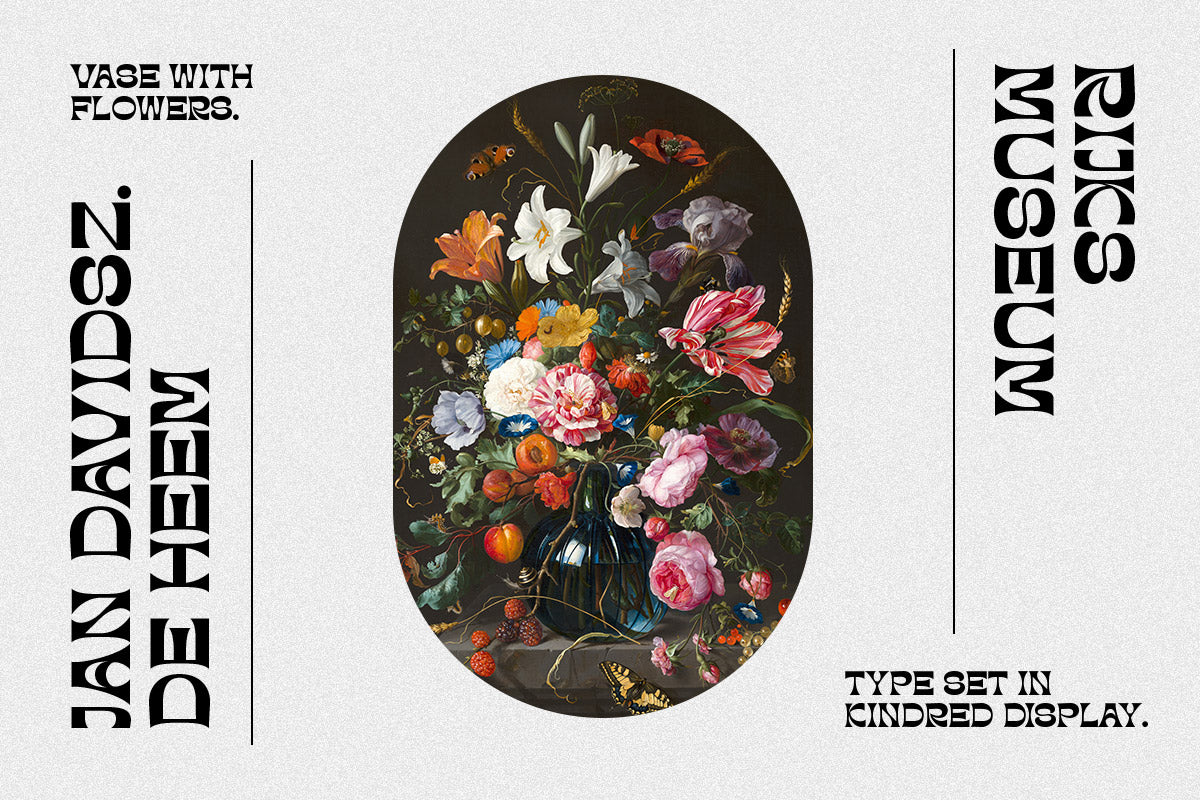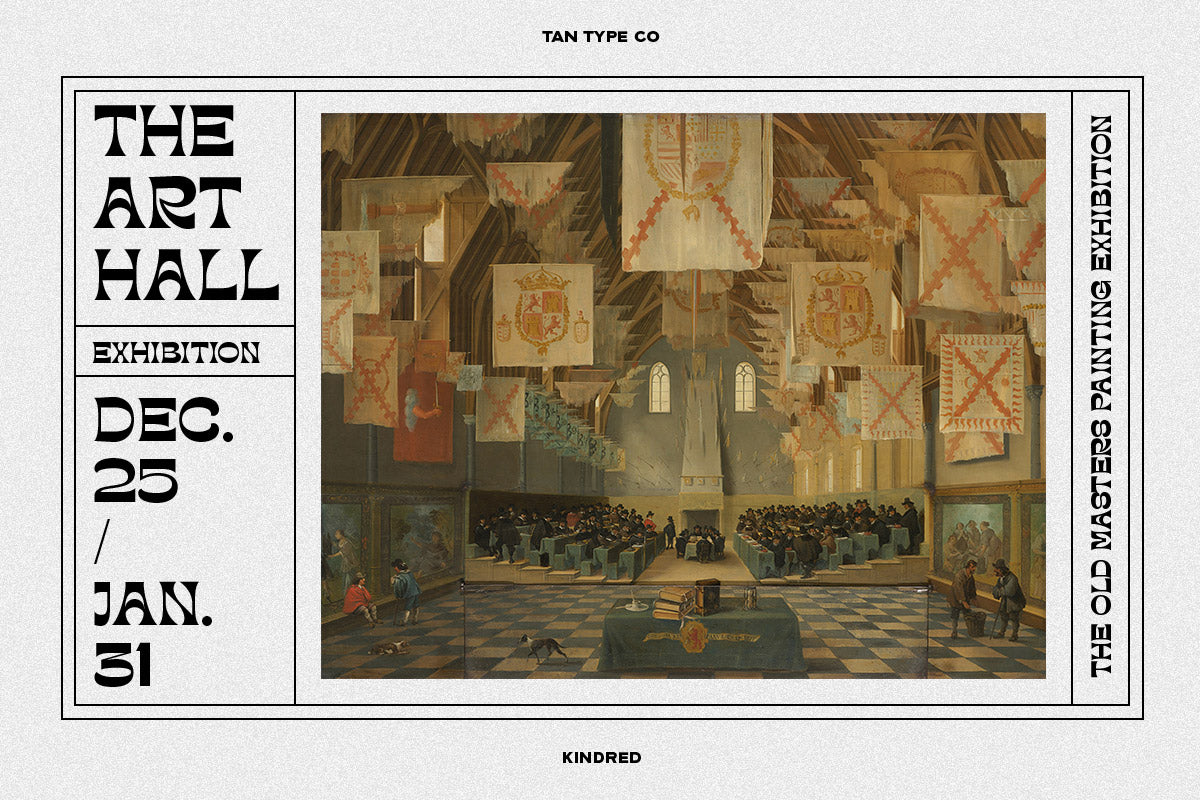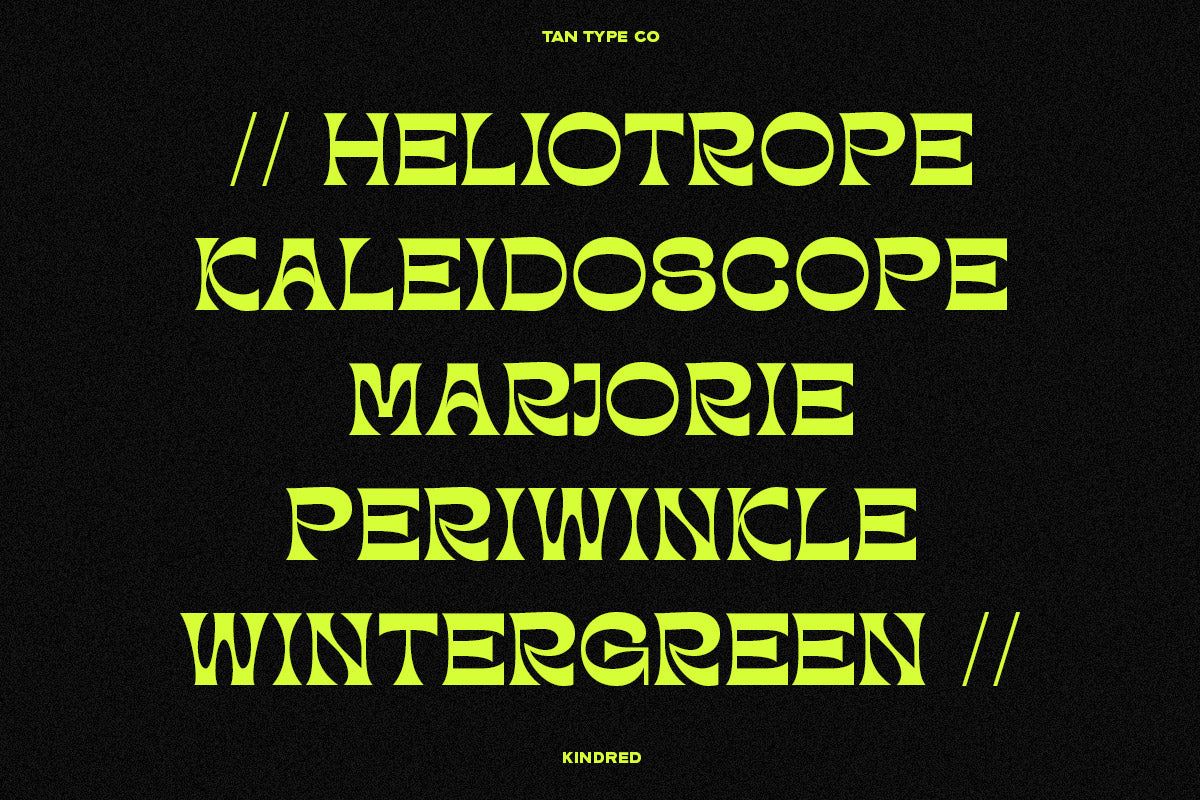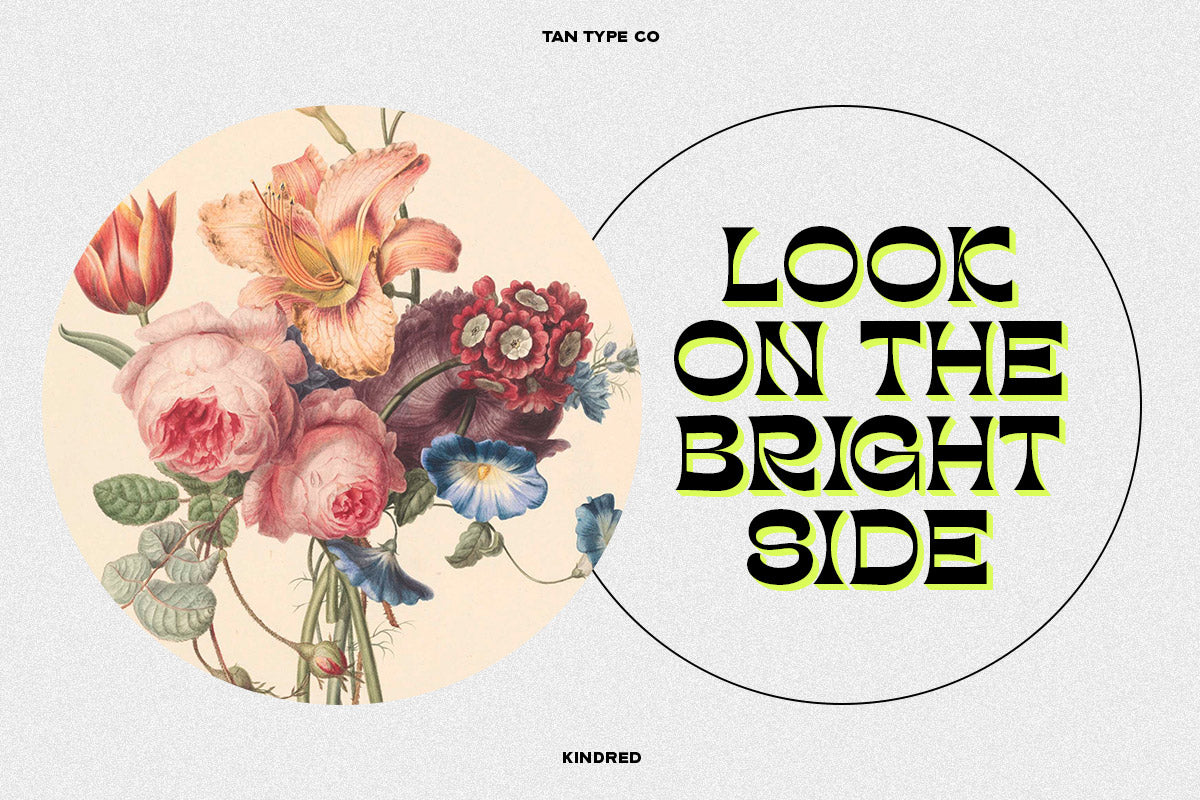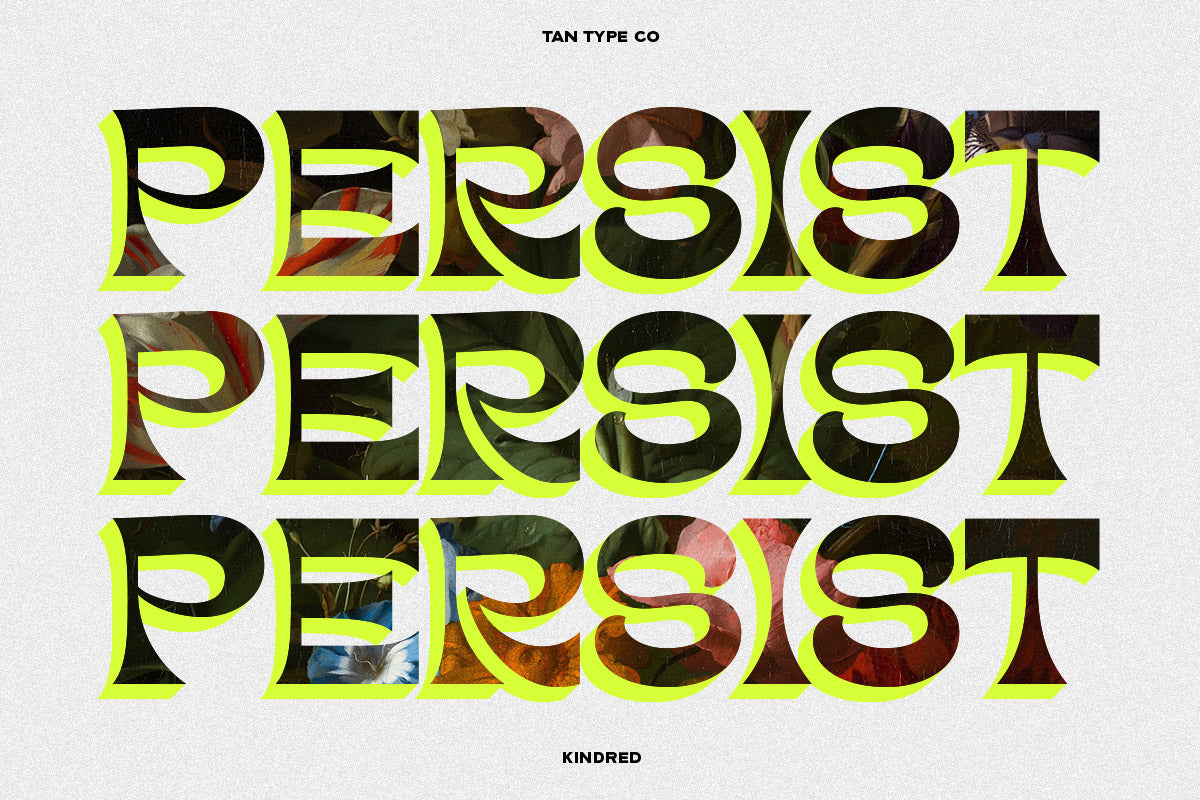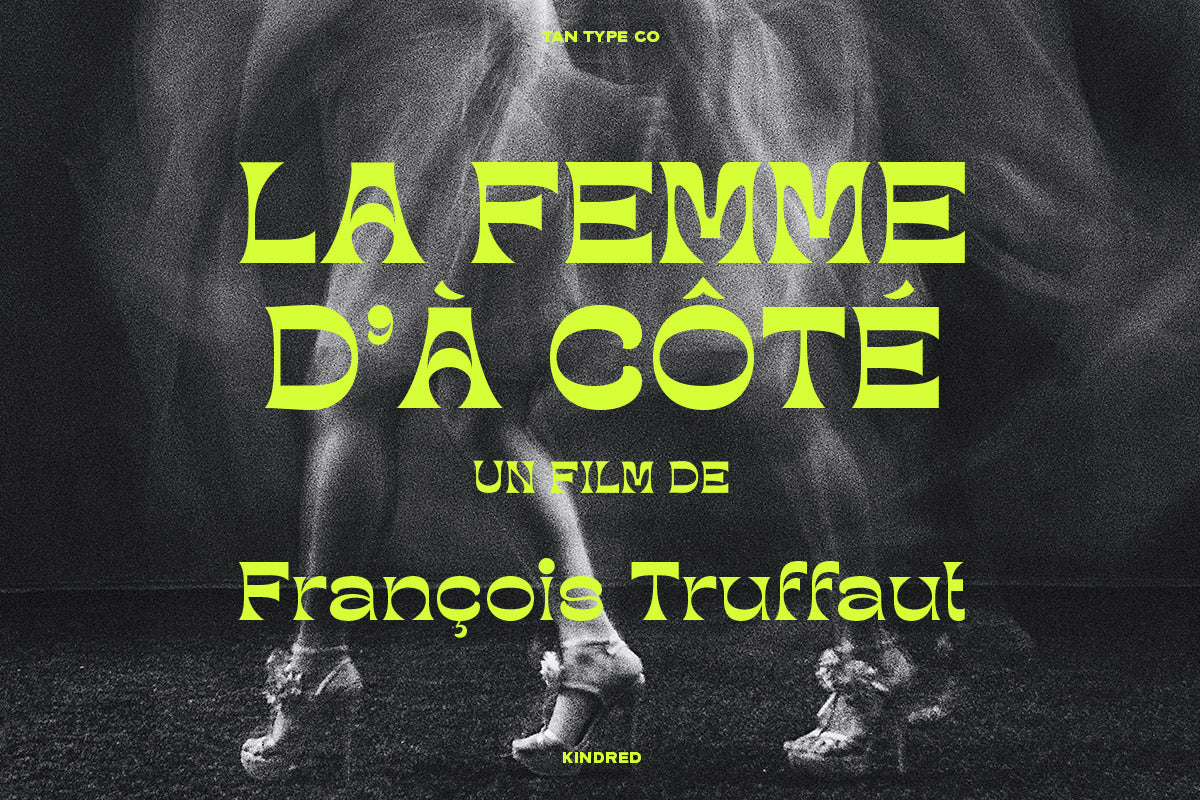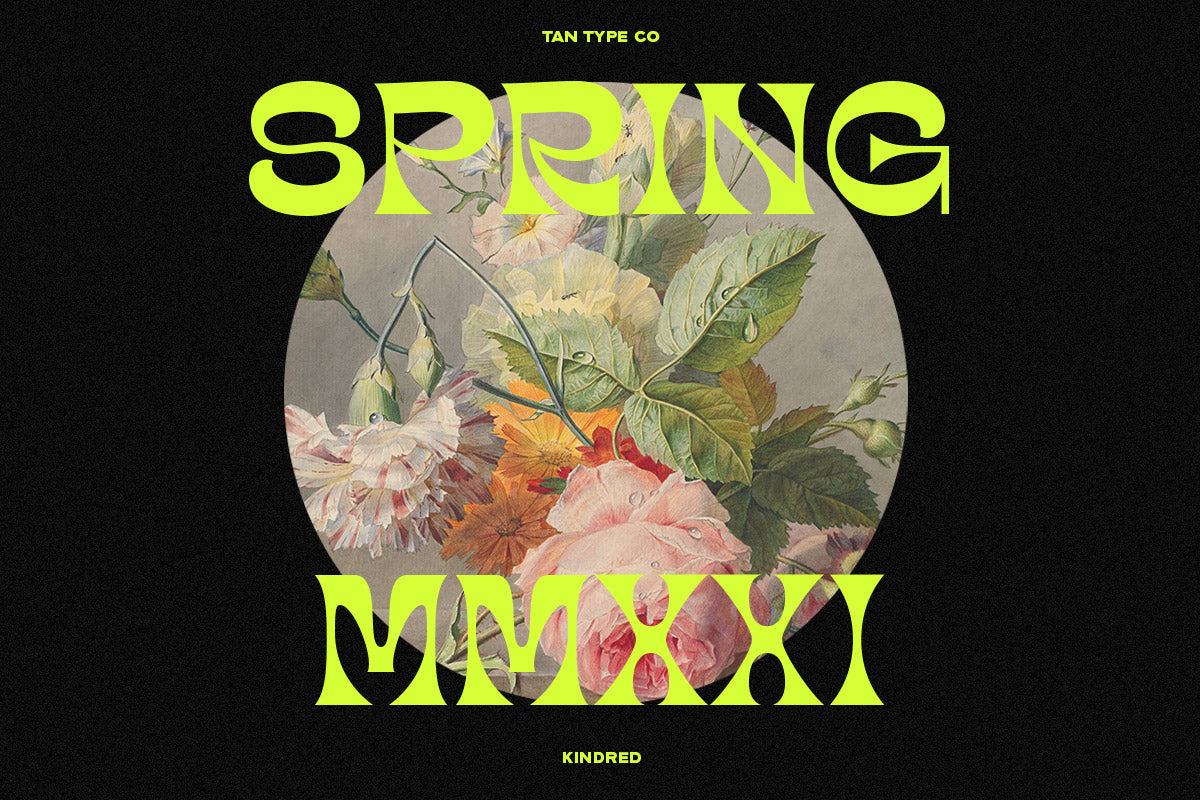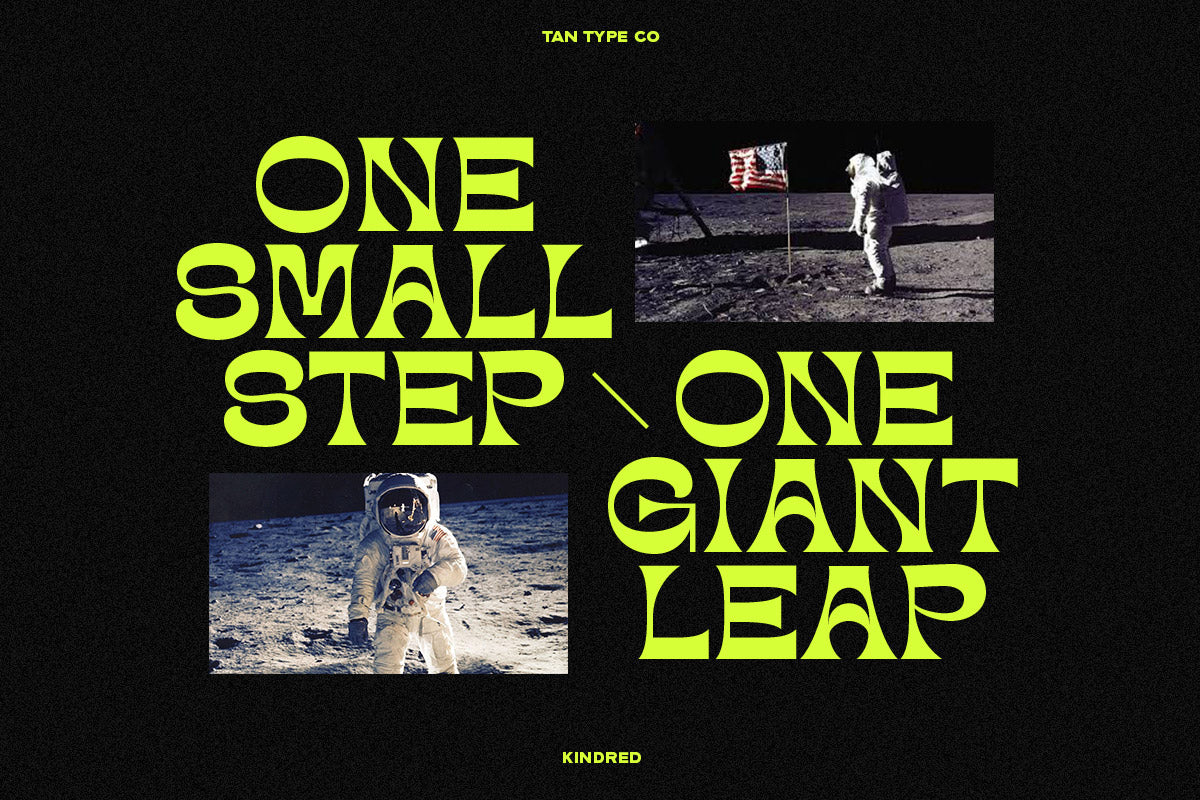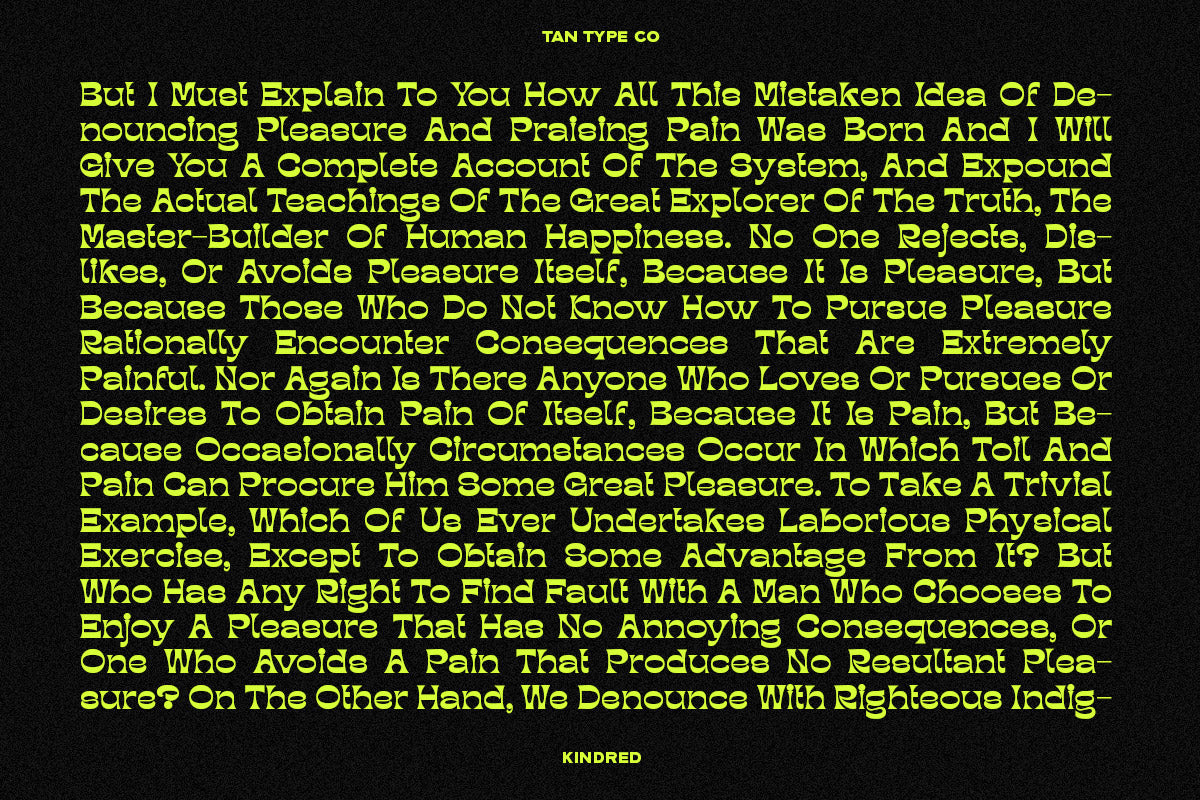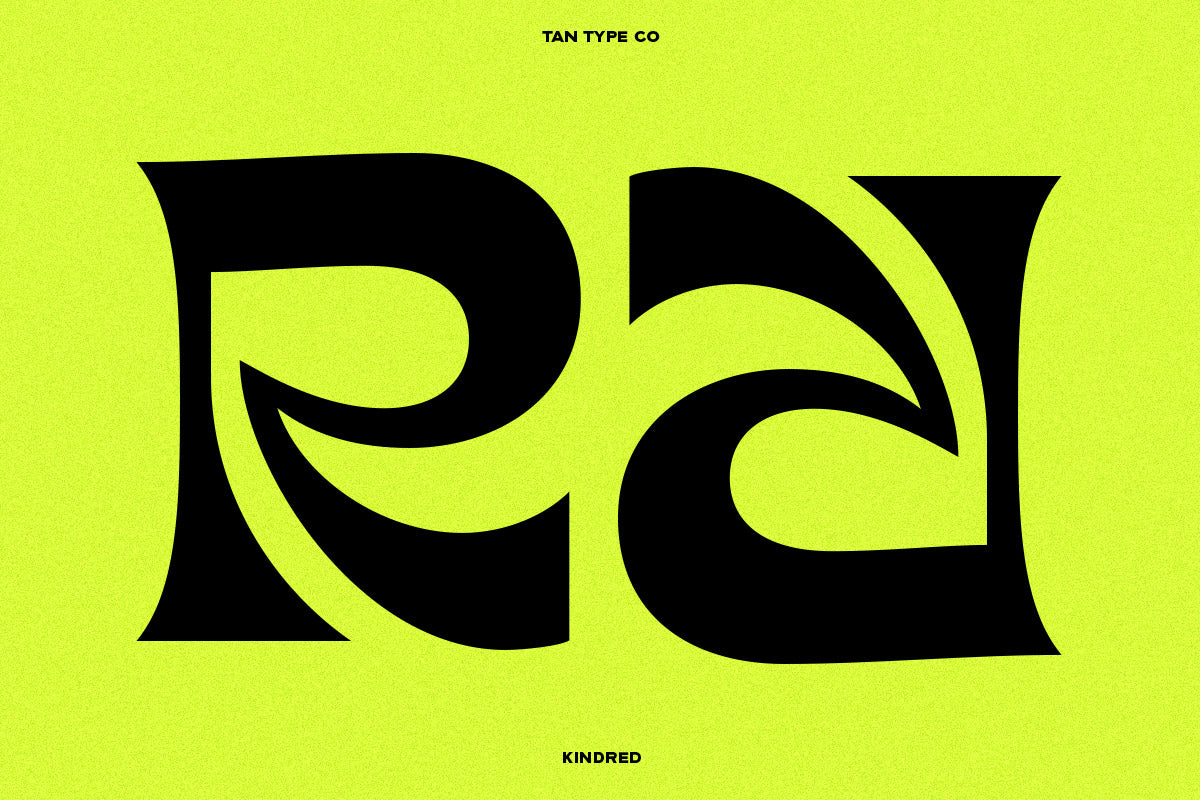
KINDRED is a bold and expressive display typeface with vintage soul and whimsical structure. Featuring wide letterforms, flared serifs, and stylized curves, it radiates nostalgic warmth while maintaining a strong, contemporary edge.